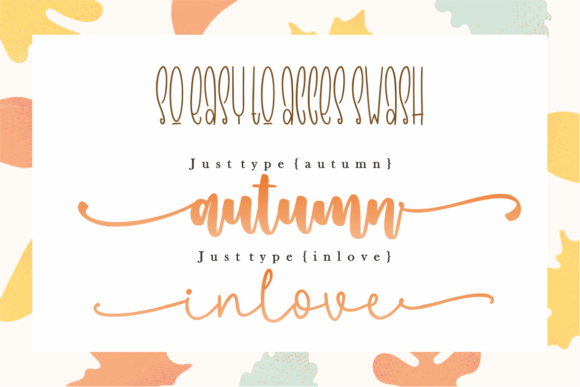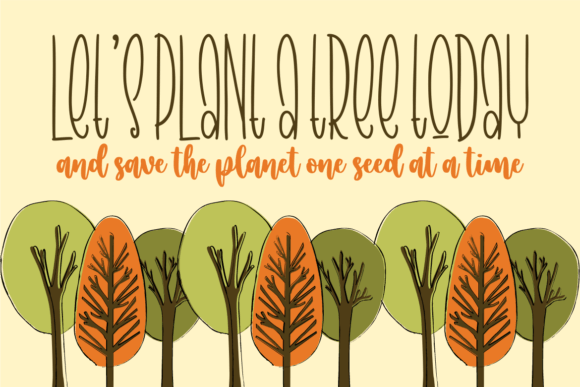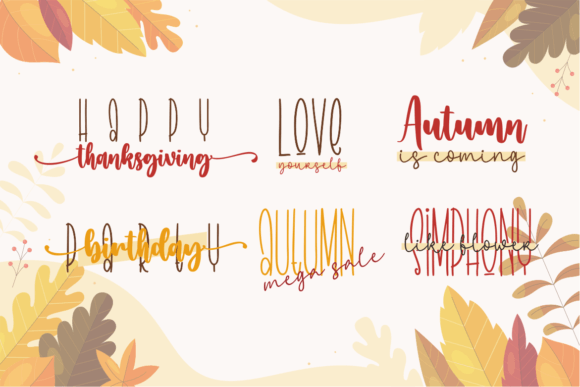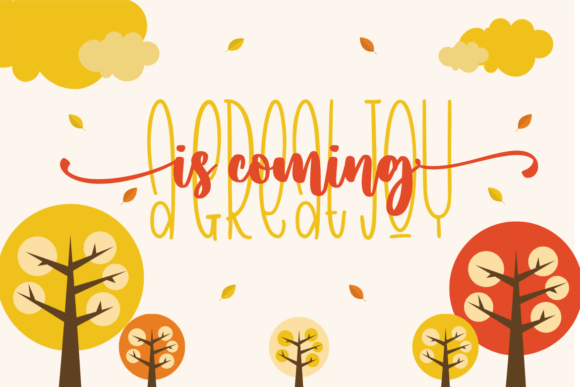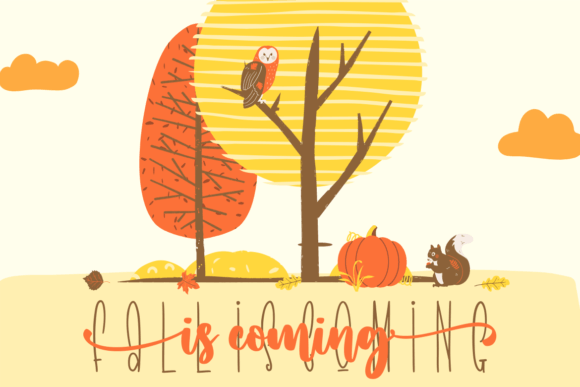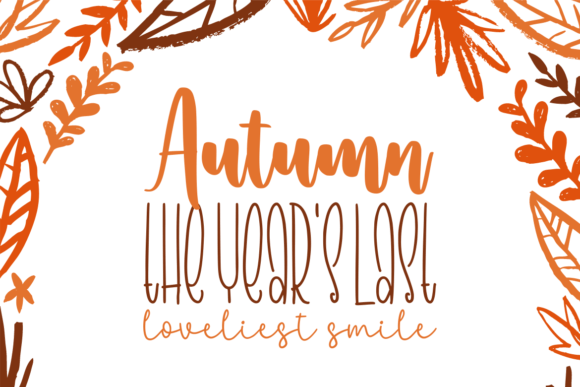
When Words Bloom into Art
As a designer, there’s something magical about bringing a concept to life on paper. It’s the moment when words transform into art, and emotions take center stage. You’re brainstorming ideas for a special project, and the theme is love – a universal language that transcends borders and cultures. You want to create something that speaks directly to the heart, and that’s where the Autumn In Love Trio Font comes in.
This enchanting font is a delicate trio of script, monoline, and sans serif styles that will add a touch of romance to any design. With its PUA encoding, you’ll have access to a wide range of glyphs and swashes, giving you endless possibilities to express your creativity. Whether you’re crafting a heartfelt greeting card or designing a captivating headline, the Autumn in Love Trio Font is the perfect companion for any project that needs a dash of love and magic.
Autumn in Love Trio Font Key Features
- Font Family: Autumn in Love Trio, a unique and elegant script font
- Unique Characteristics: Includes 3 versions of the font, each with its own distinct personality and feel, making it ideal for creating visually appealing and dynamic designs
- Language Support: Supports multiple languages, including Latin, Greek, and Cyrillic scripts
Review of Autumn in Love Trio Font
Overall, I think Autumn in Love Trio Font is a lovely, whimsical font that can add a touch of warmth and coziness to any design project. ✨ The font is well-designed, with clean lines and a clear, readable structure. It’s perfect for projects that require a romantic, autumnal feel.
- Unique, hand-drawn feel that sets it apart from more generic fonts ✨
- Beautiful, intricate details that add depth and character to text ✨
- Good legibility, even at smaller font sizes ✨
- May not be suitable for projects that require a more modern or sleek aesthetic ⚠️
- Some letters may be difficult to read at very small font sizes ⚠️
- Not ideal for projects with tight deadlines, as the font’s unique characteristics may require some experimentation to get just right ⚠️
In terms of overall impression, I think Autumn in Love Trio Font is a solid choice for designers who want to add some personality to their projects. With its unique, hand-drawn feel and beautiful details, it’s perfect for autumn-themed projects, weddings, or any other design project that requires a touch of romance and whimsy.
Use the Autumn in Love Trio Font in conjunction with warm, earthy colors to evoke a cozy and autumnal feel.